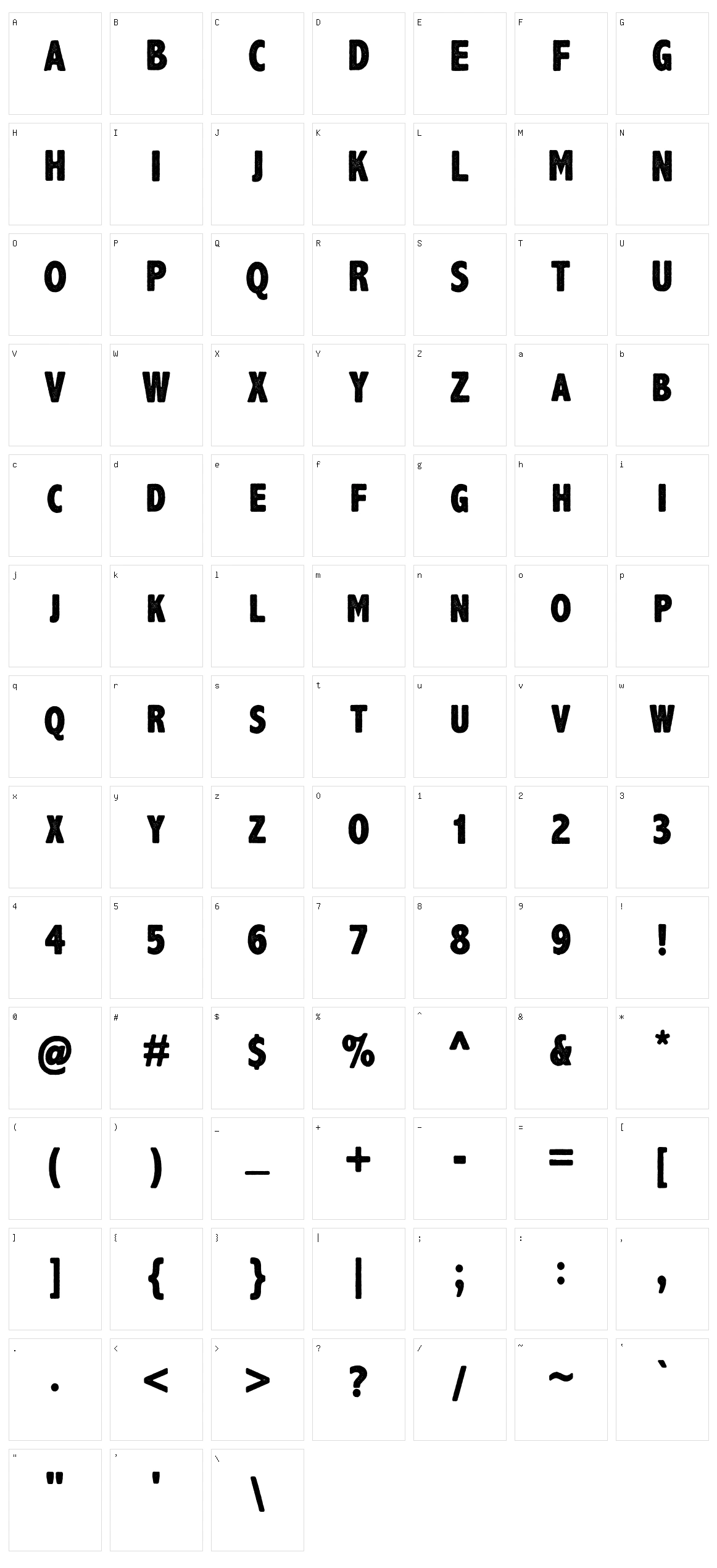
AXEHANDEL
A Font by S. John Ross
AxeHandel is a warm-asphalt sort of font, a hug-the-ground sort of font. It's a stress-font in a variation of the Cumberland house style, with lessons applied from many previous efforts. I think it speaks of strength, but a shabby, weatherbeaten kind of strength.